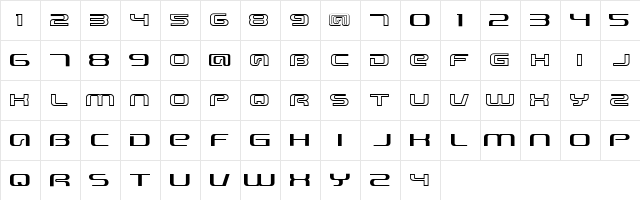
Intergalactic Regular
Design Context for Intergalactic Typeface
Intergalactic is a composed and adaptable typeface that performs quietly and consistently across a wide range of design contexts.